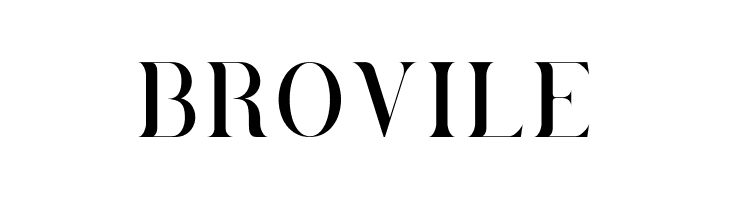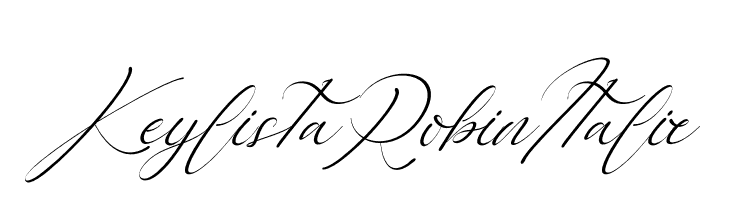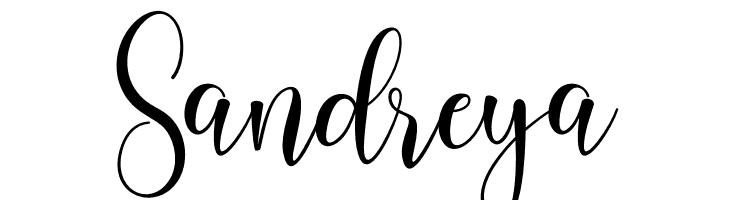
An elegant, flowing script font with graceful curves and artistic flair.
An ornate serif font with floral embellishments, perfect for artistic and elegant designs.
A graceful and elegant script font with flowing, connected strokes.
A lively and elegant script font with flowing, cursive letterforms.
A modern, elegant script font with smooth curves and consistent strokes.
A classic serif font with high contrast and elegant strokes.
A playful, whimsical font blending script and display styles.
A bold, distressed font with a rugged, vintage texture.
A bold, 3D block-style font with a geometric, shadowed design.
A bold, playful font with a modern and quirky style.